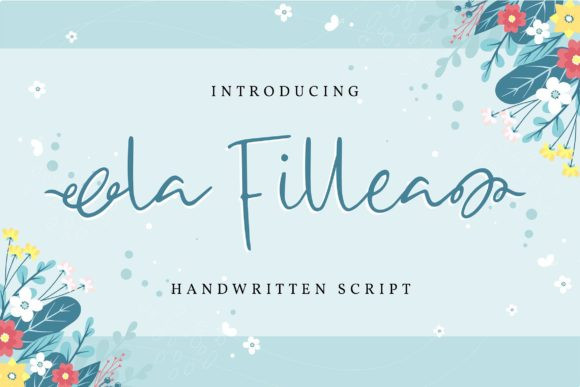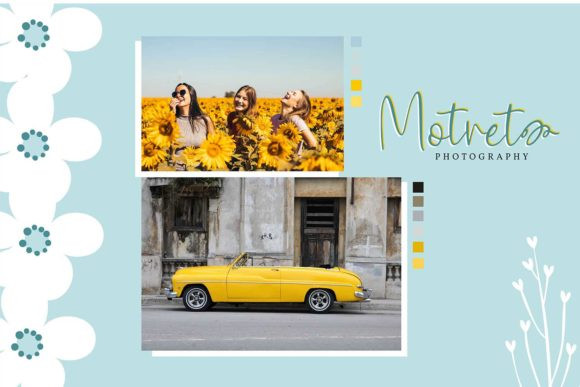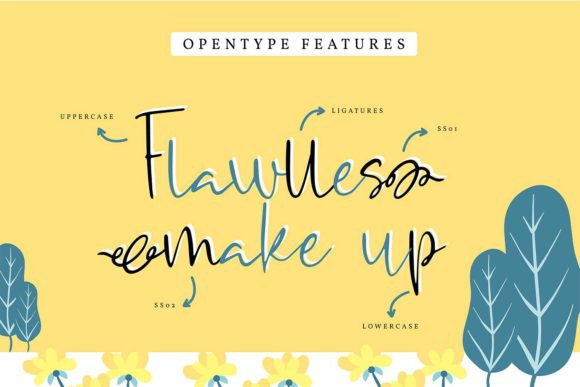
La Fillea Font
La Fillea is a graceful and dainty handwritten font. It has beautiful and well balanced characters and as a result, it matches a wide pool of designs.This font is PUA encoded which means you can access all of the glyphs and swashes with ease!